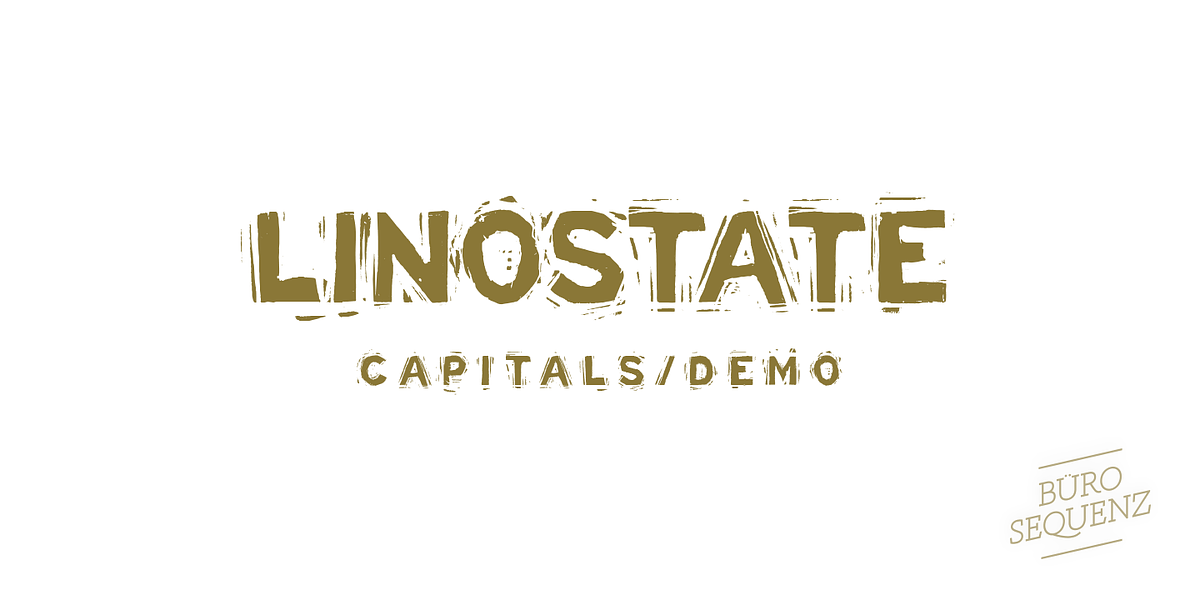
Linostate
Linostate is a grunge-style hand display font inspired by the Interstate typeface. Its hand-cut aesthetic and all-caps design make it suitable for eye-catching headlines and short text blocks.